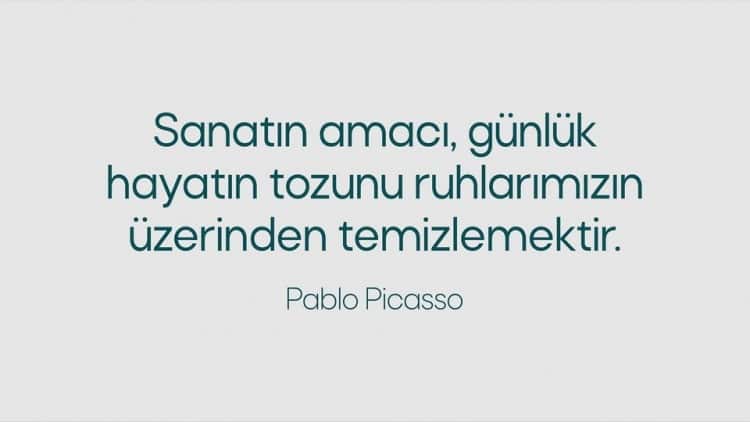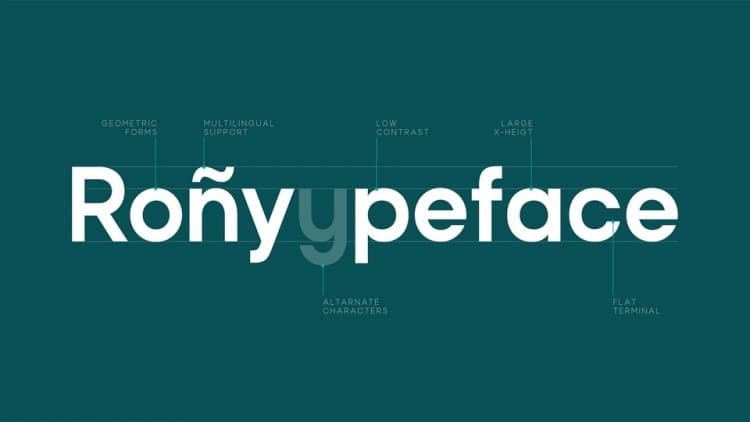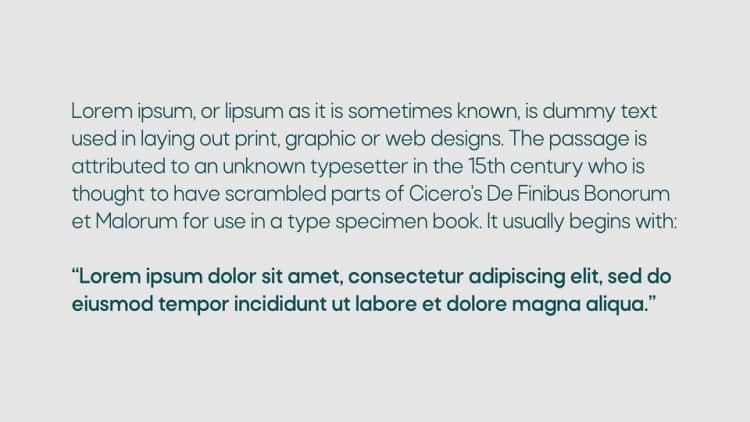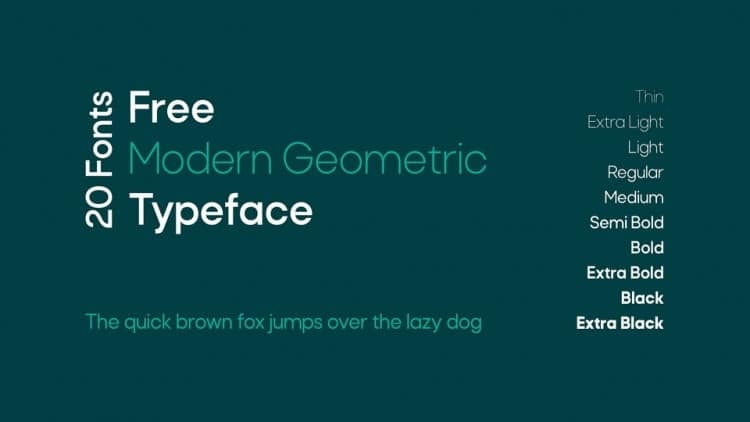
Rota Sans Serif Font is a simple and geometric sans serif typeface package by Serdar Öztürk, a perfect blend of minimal and modern design aesthetics. The family comes in 10 weights from Thin to Black with matched Italics.
Rota is a versatile typeface that is suitable for logotypes, headlines, branding, marketing graphics, corporate identities, all web and print purposes.